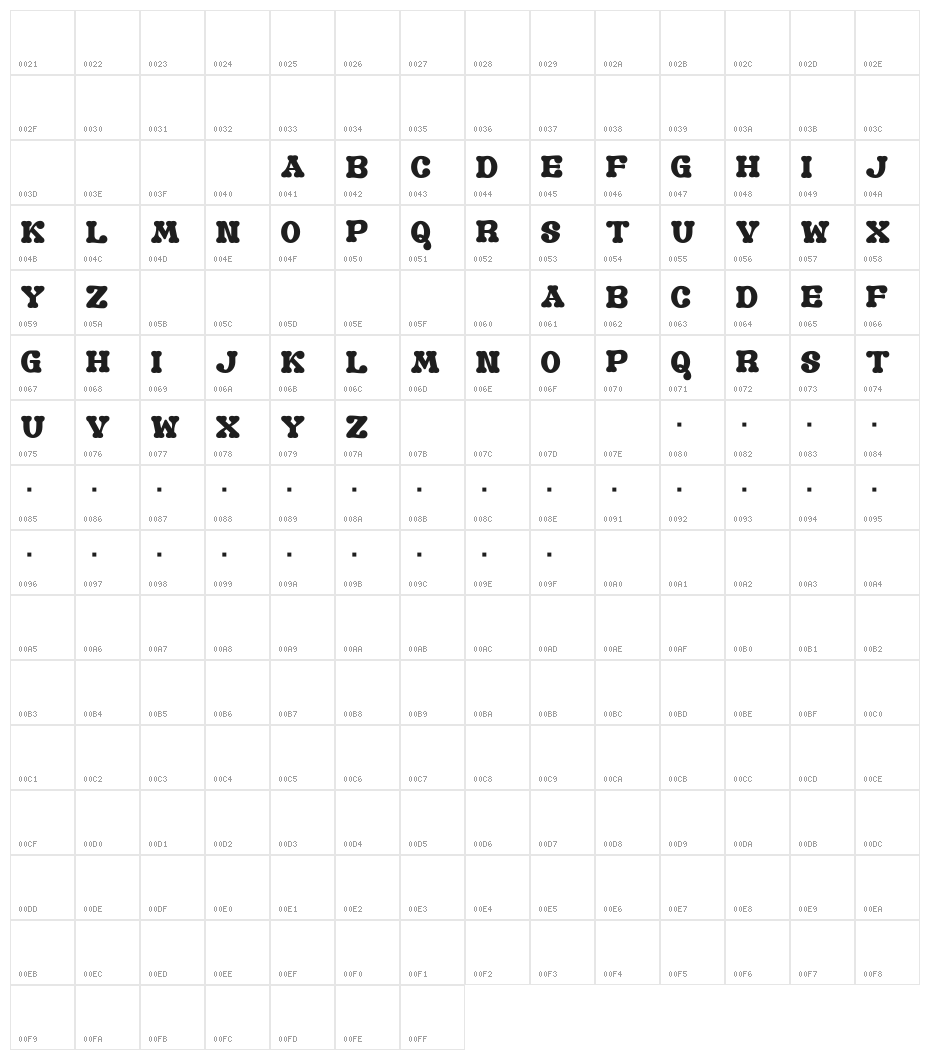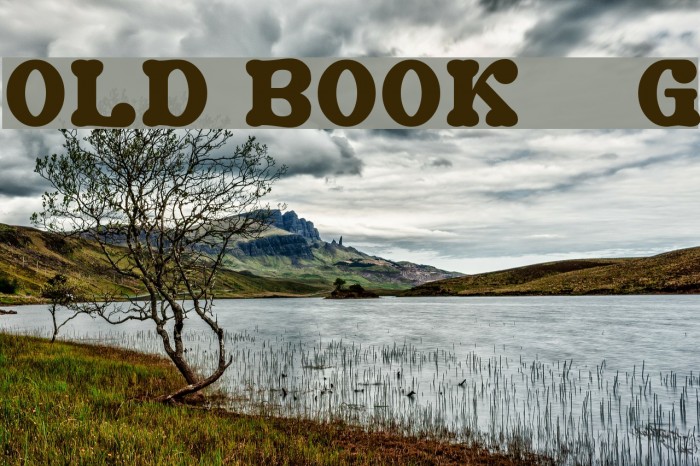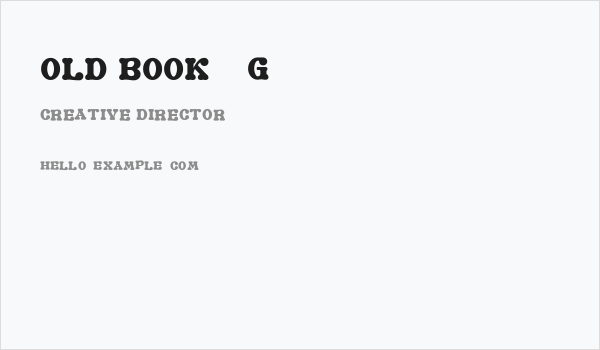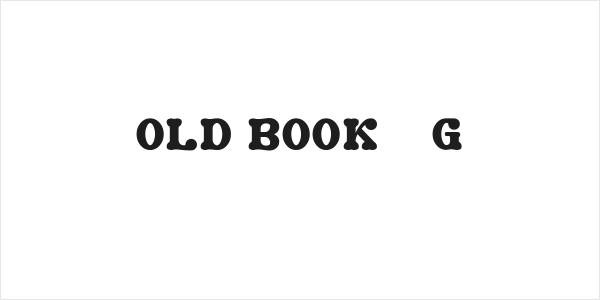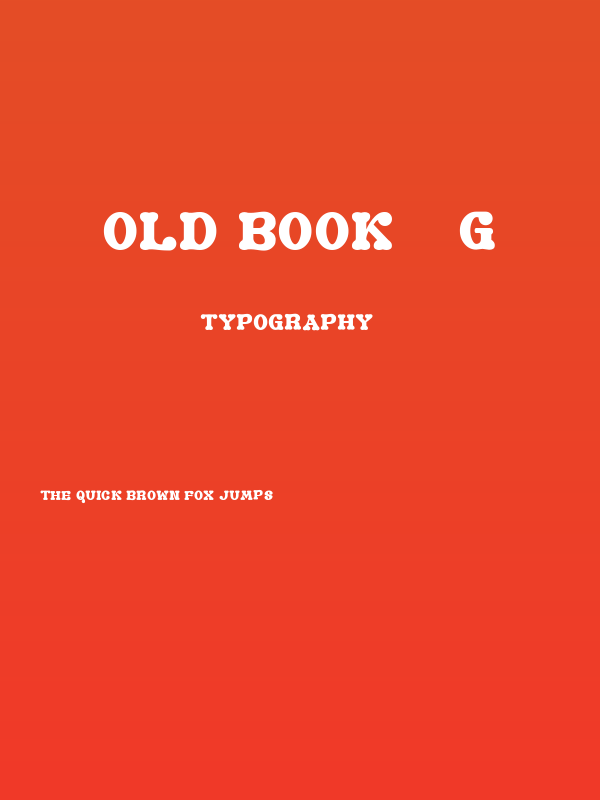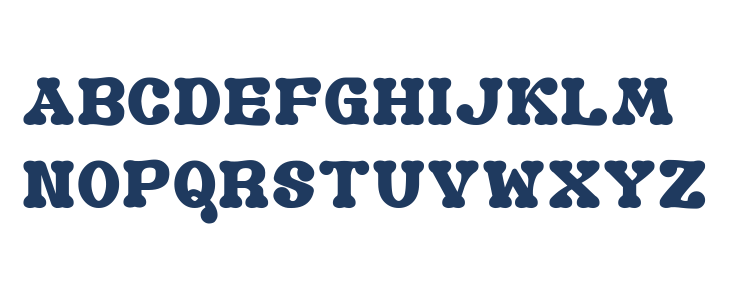
Old Book__G Font
Old Book__G Description
This font features a bold and decorative style with a playful, vintage flair. The characters are characterized by thick, rounded strokes and pronounced serifs, giving them a strong and impactful appearance. The design evokes a sense of nostalgia, reminiscent of old book covers or vintage signage. Each letter is distinct, with a consistent weight and width, ensuring readability while maintaining its unique aesthetic. The font's boldness and decorative elements make it suitable for projects that require a touch of whimsy and historical charm.